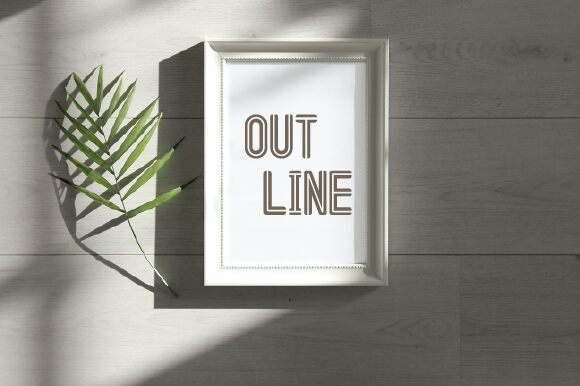
Line out Regular
Line out is an exquisite display font designed by WAP Type. Its condensed width and bold strokes make it stand out in any design project. This typeface is perfect for headlines, titles, logos, and branding projects that require a touch of elegance and sophistication. Line out's clean lines and sharp edges make it suitable for minimalistic designs while its boldness makes it ideal for projects that need to command attention. Whether you're creating event posters or designing packaging for luxury products, Line out is the perfect choice to add a touch of refinement to your work.